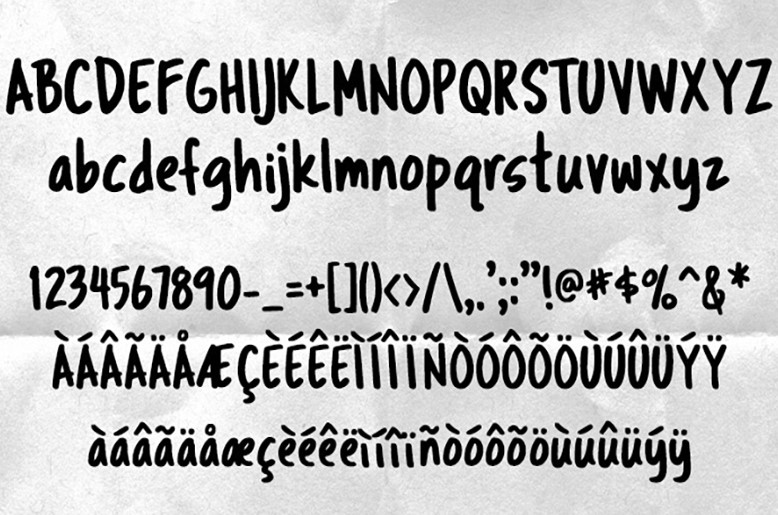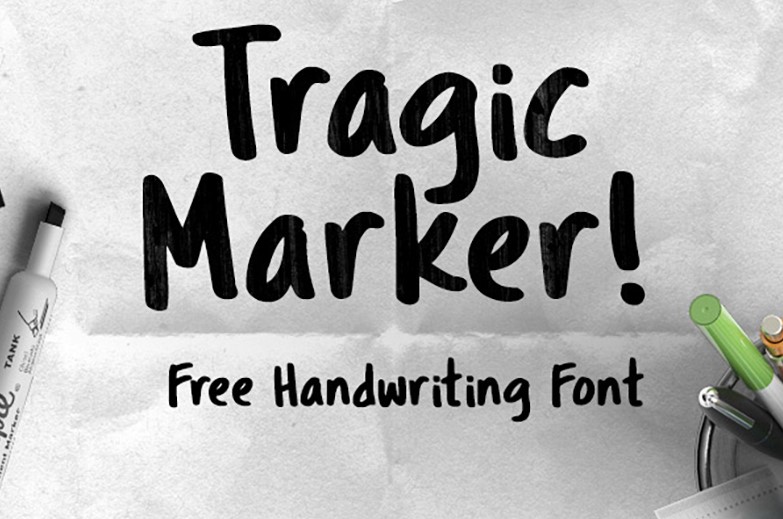
Tragic Marker Font
Tragic Marker Font falls under the category of the handwritten fonts. This font is present inside the Microsoft word and it is similar to the ludicrous font. It permits the house home windows cleartype textual content rendering gadget, which desires to decorate text clarity on liquid crystal display shows. I expect you are a developer or font fashion style dressmaker, therefore, you return to our internet net web page for purchasing that typeface.
Powerful styles, exquisite completing touch like dense font, and amazing modern-day designs make in recent times. Download This loose net font is a sans serif with a low difference and a tall x-top, capabilities that translate well onto the show. Its massive character set consists of small caps, pictograms, and arrows. Much like bebas kai font, it gives a smooth and these days arrives at your net web page or weblog.
Which you may layout appropriate advertisements, tags, chapters folders, labelings, watermarks via video enhancing.